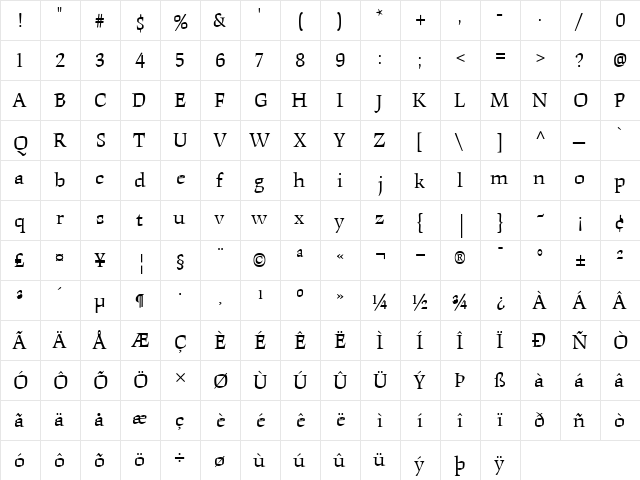
Origami Roman
Design Context for Origami Typeface
Origami offers clean, dependable letterforms without strong stylistic allegiance, making it a practical choice for designers who need flexibility.
Pro Tip: Pair Origami with a font of contrasting weight or personality to build a more expressive typographic hierarchy.